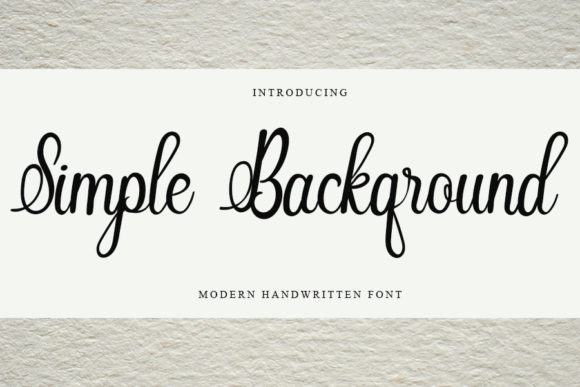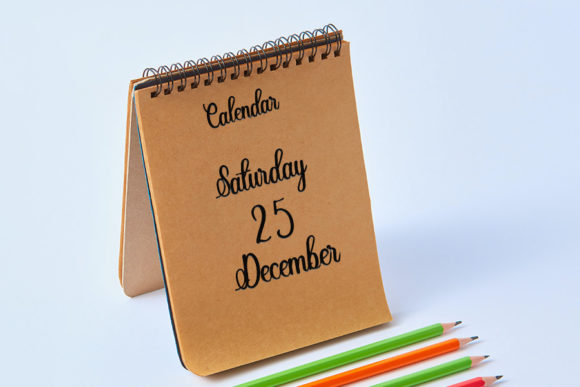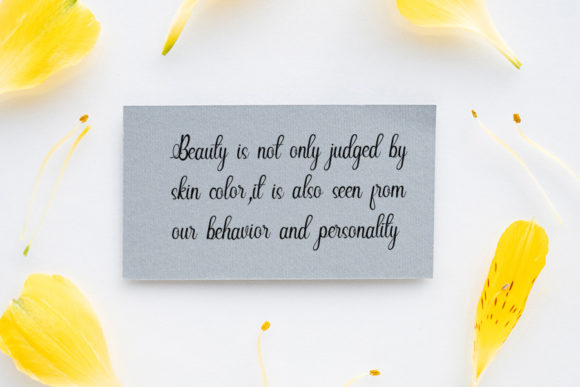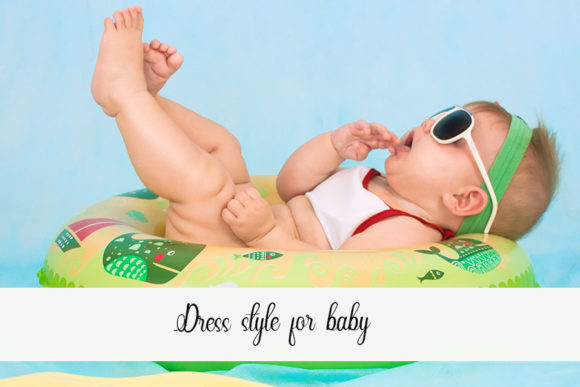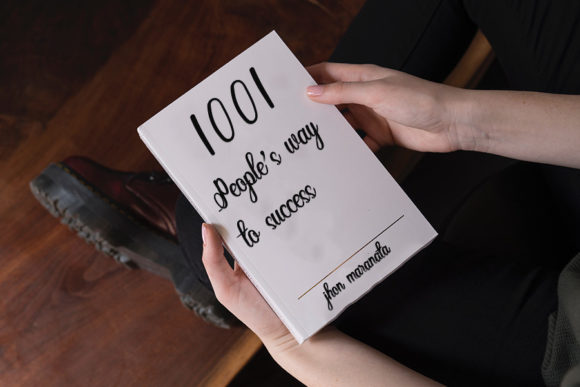
About Simple Background Font
Simple Background is a casual handwritten font, carefully designed to become a true favorite. It maintains its classy calligraphic influences while feeling contemporary and fresh. Fall in love with it and bring your projects to the highest levels!